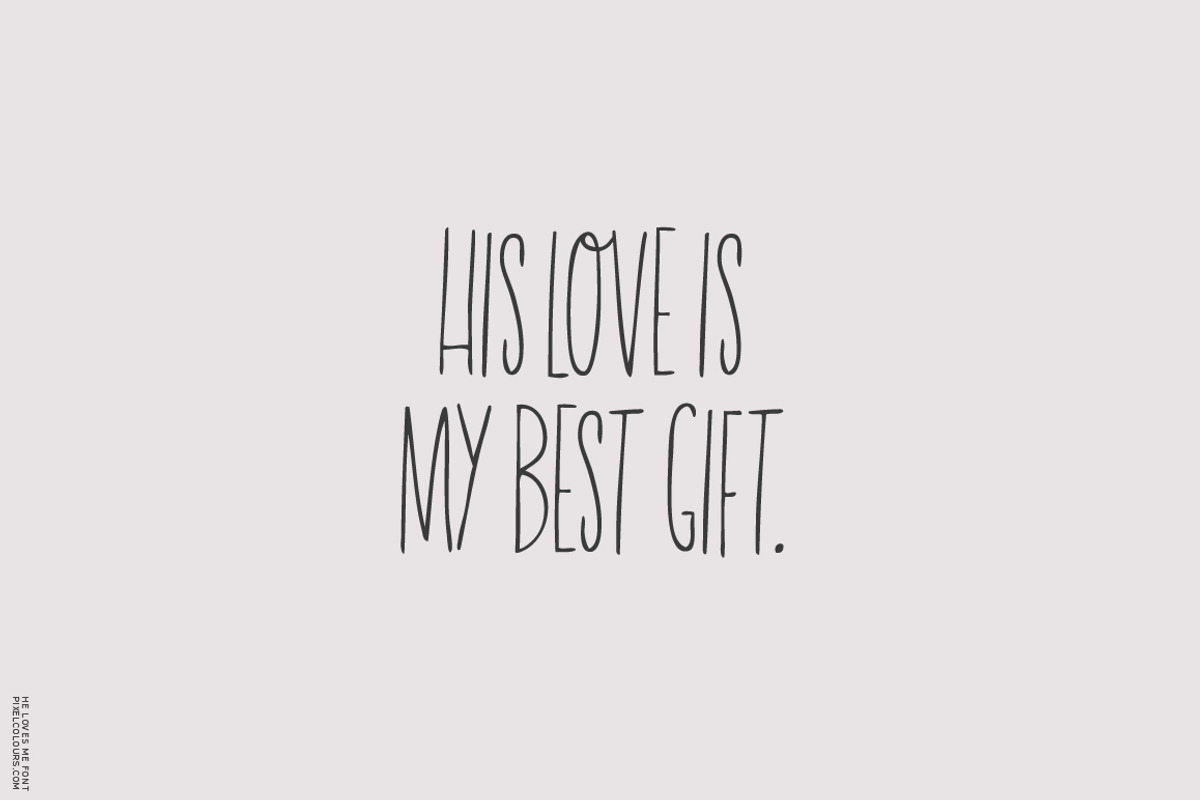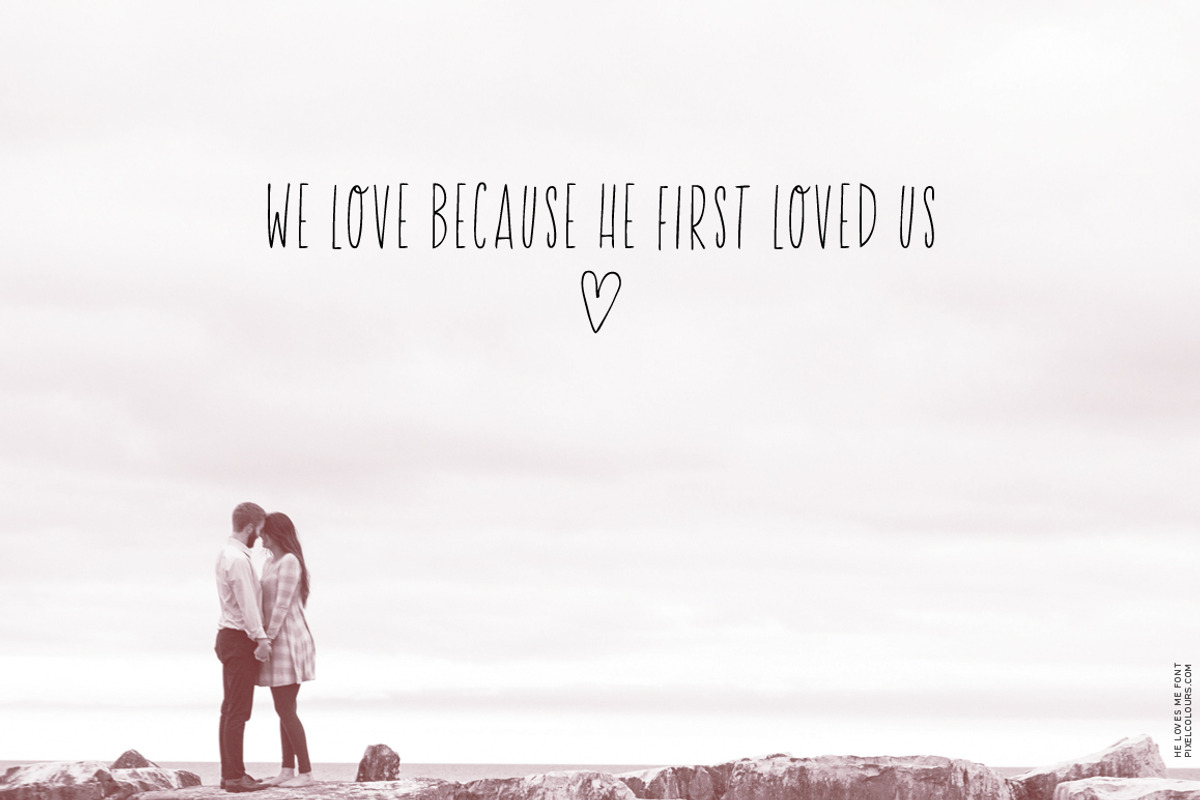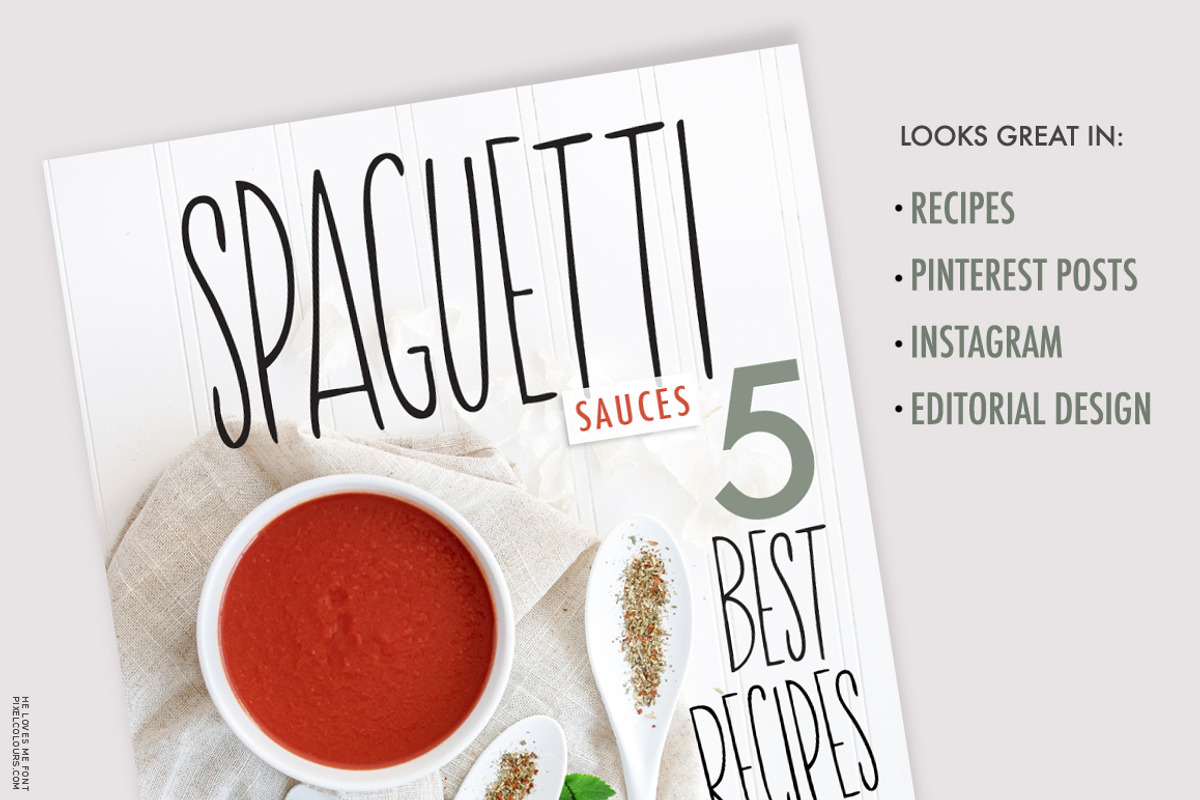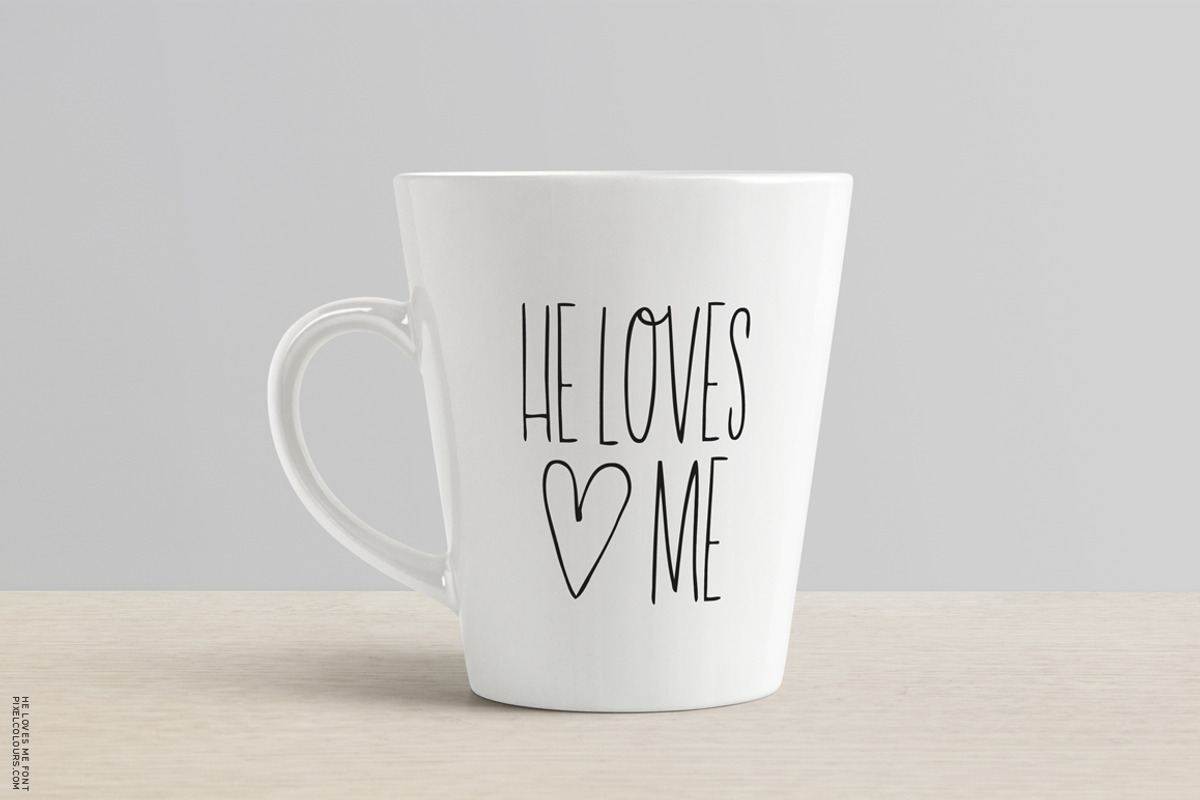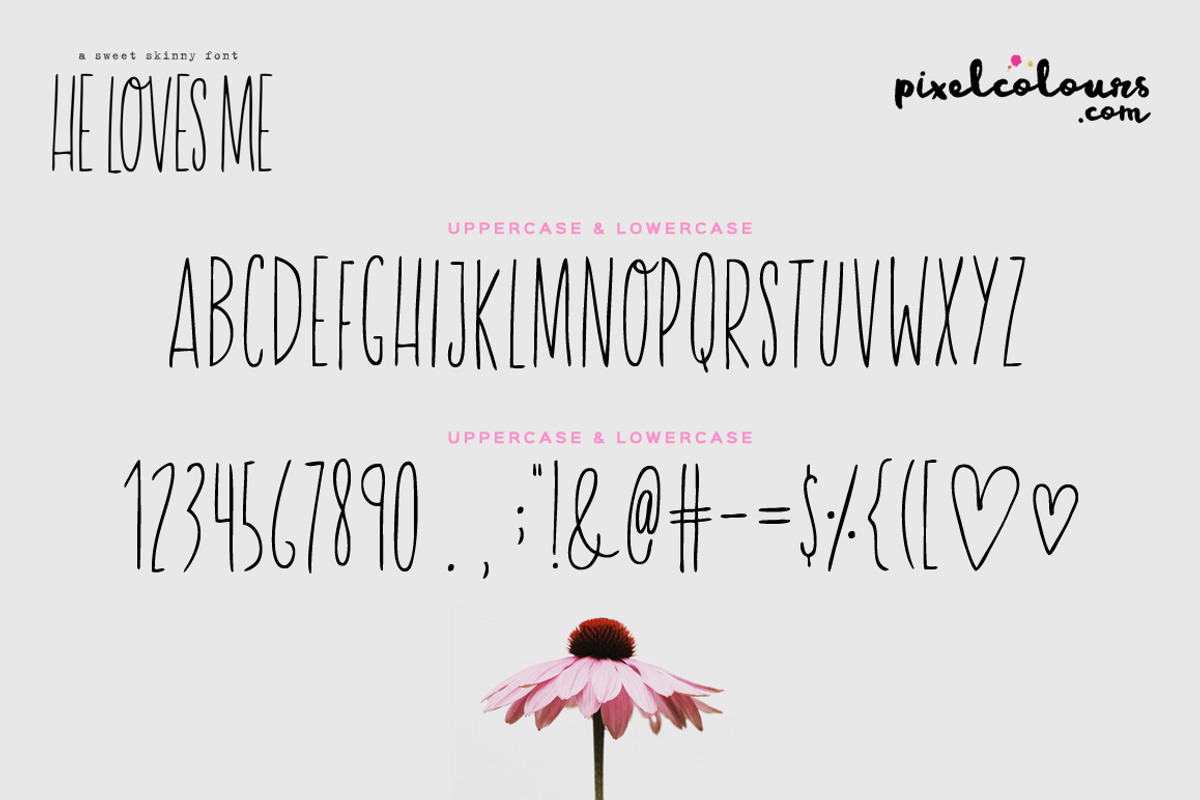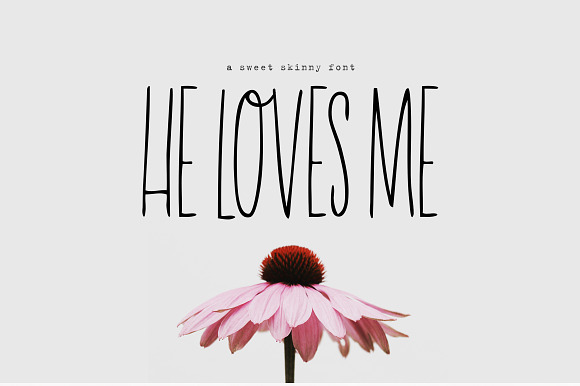
He Loves Me Skinny Font
A classic but original, imperfect skinny font with lots of sweetness!
SOCIAL MEDIA FRIENDLY
This font looks super beautiful in titles, recipes, social media posts, quotes, etc.
Numbers and punctuation